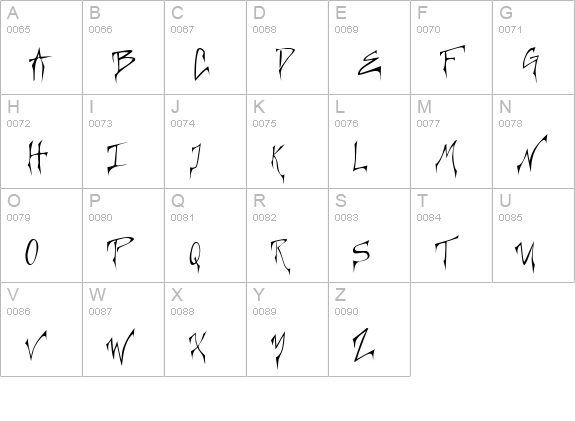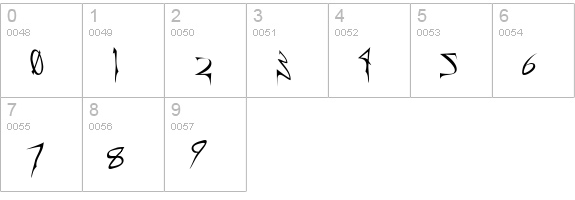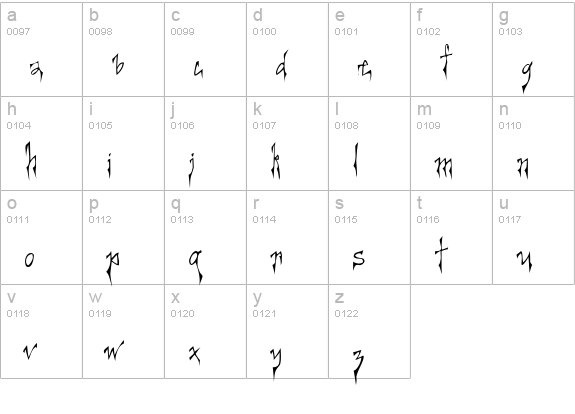
Creepygirl Font Details
Creepygirl font is a hauntingly beautiful typeface that exudes an air of mystery and darkness. With its twisted letterforms and eerie aesthetic, this font is perfect for creating spooky designs and chilling compositions. The intricate details and sharp edges of Creepygirl font will send shivers down your spine as you explore its sinister style. Best of all, Creepygirl font is available for free download at FontsMarket.com. This means you can easily add a touch of macabre elegance to your projects without breaking the bank. Whether you're looking to add a creepy vibe to your Halloween invitations or give your website a gothic flair, Creepygirl font has you covered. Download it now and unleash your inner darkness with this captivating typeface.